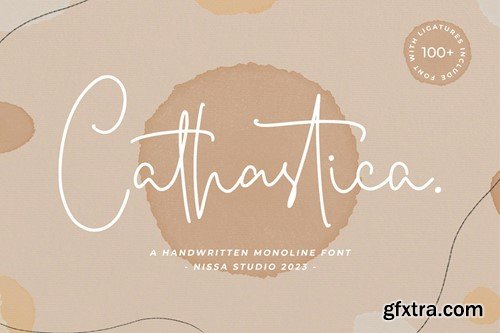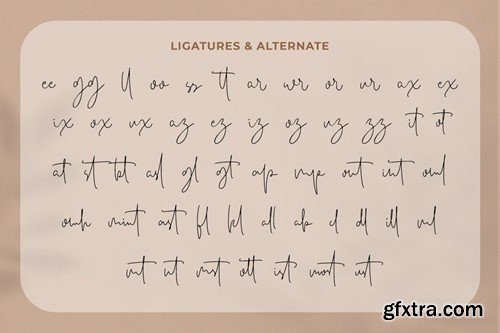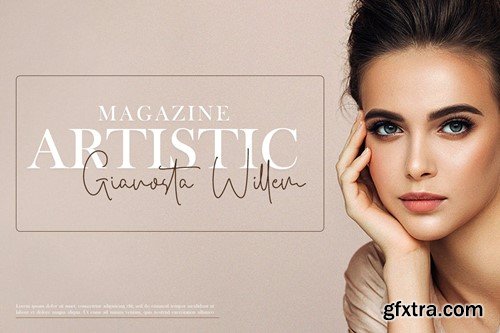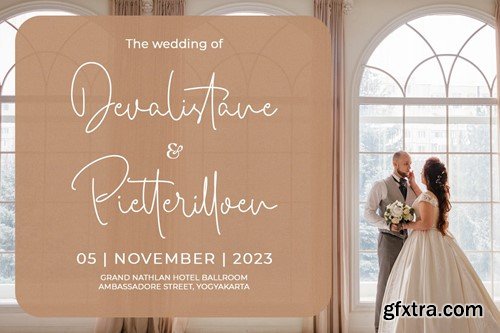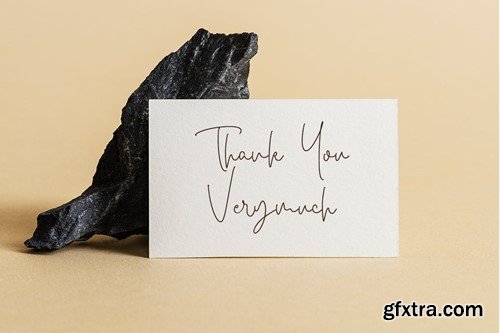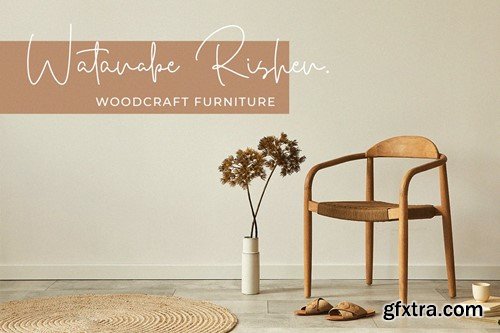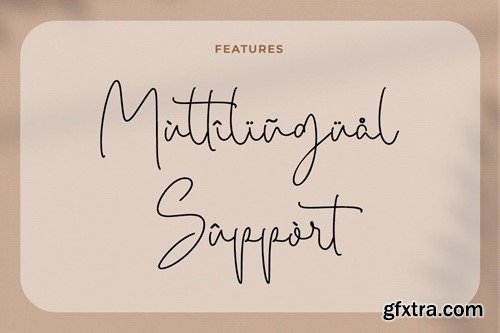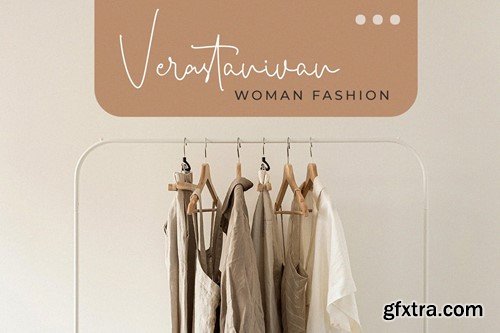
Cathastica - Monoline Font
Cathastica is a beautiful and delicate handwritten font with a unique feel and a stunning impact. It will add a luxury spark to any design project that you wish to create! What's Included: PUA encoded = Accessible in the Adobe Illustrator, Adobe Photoshop, Adobe InDesign, even work on Microsoft Word. PUA Encoded Characters - Fully accessible without additional design software. Each Font Has: Thank You